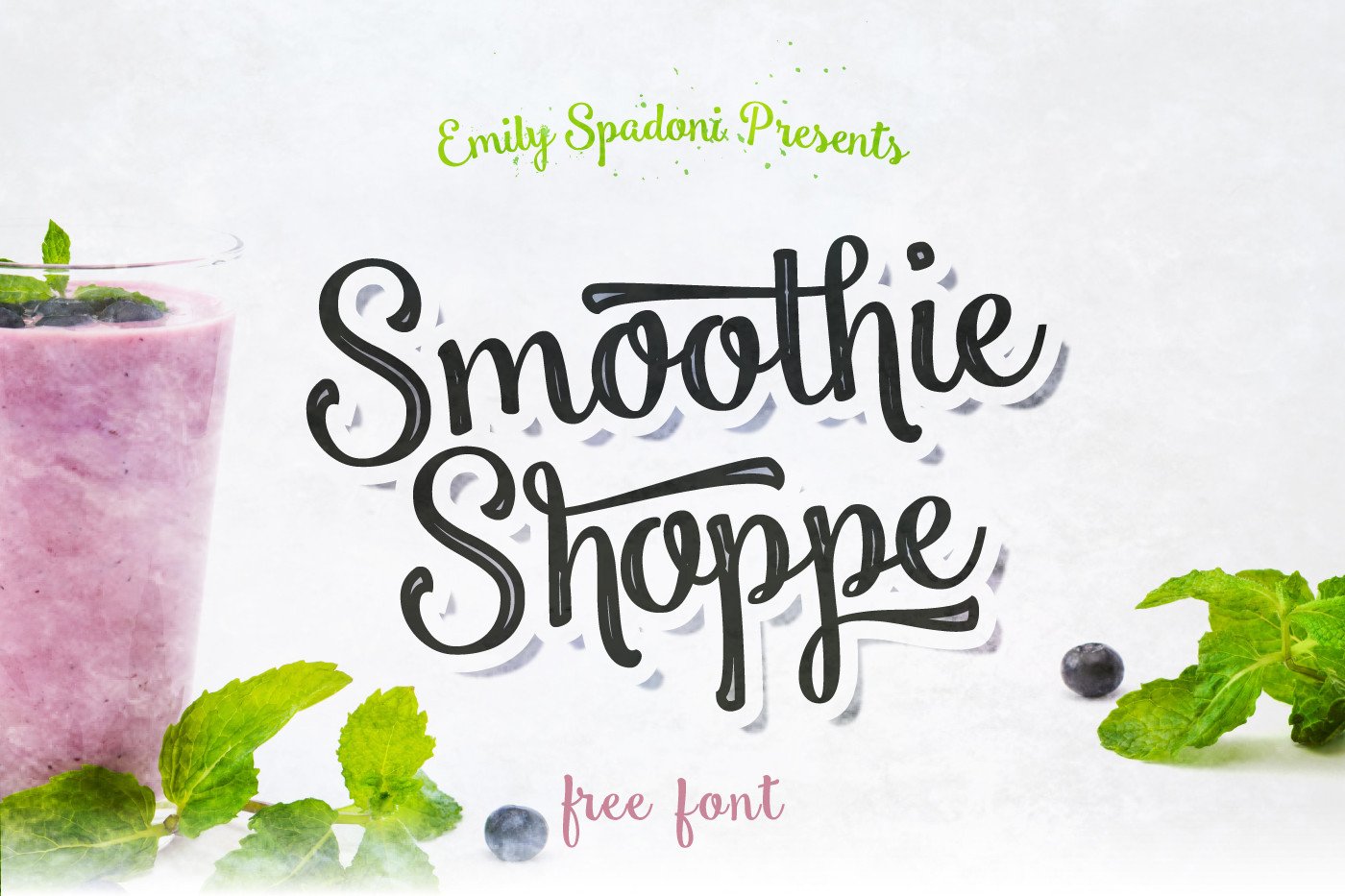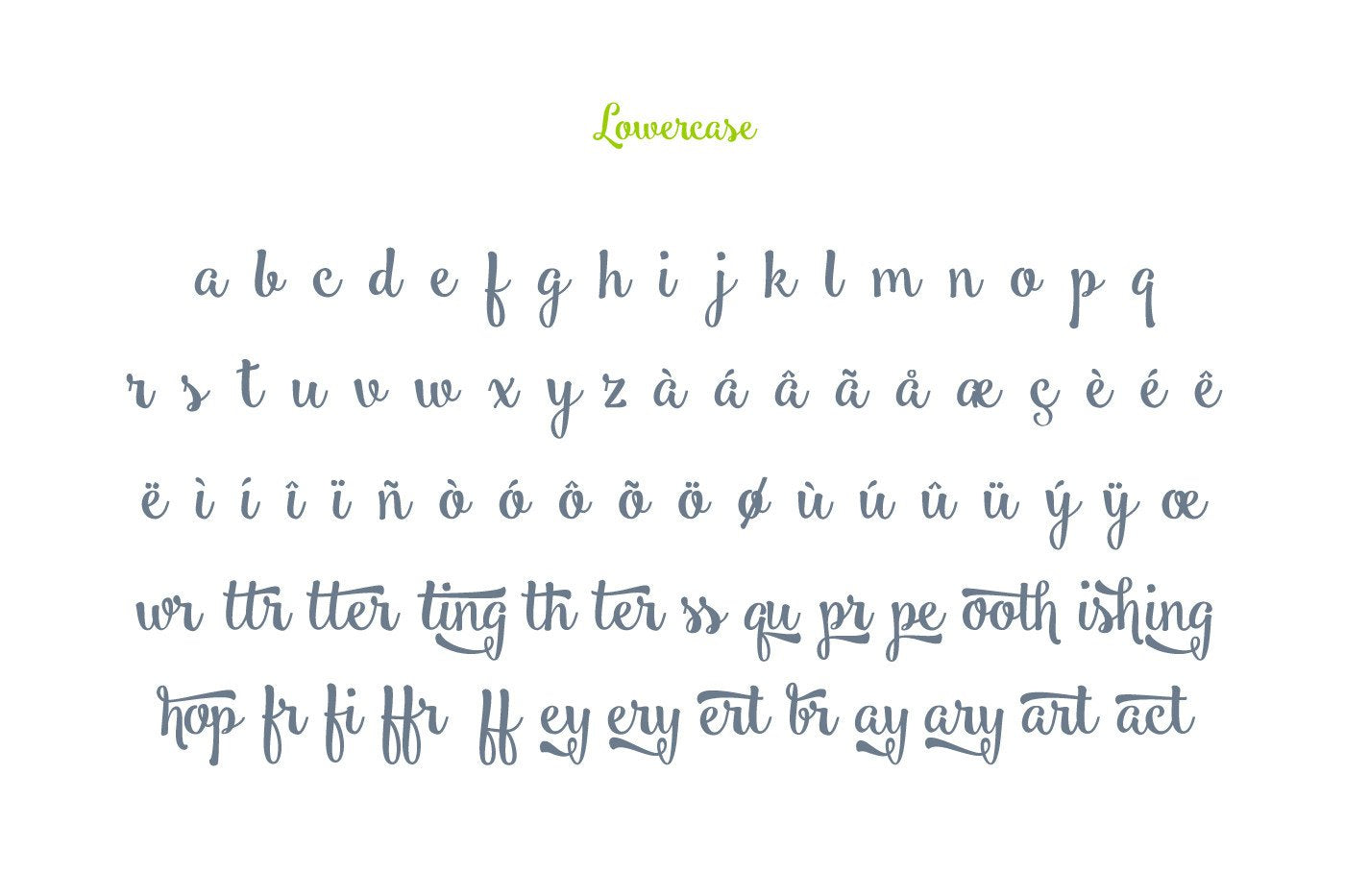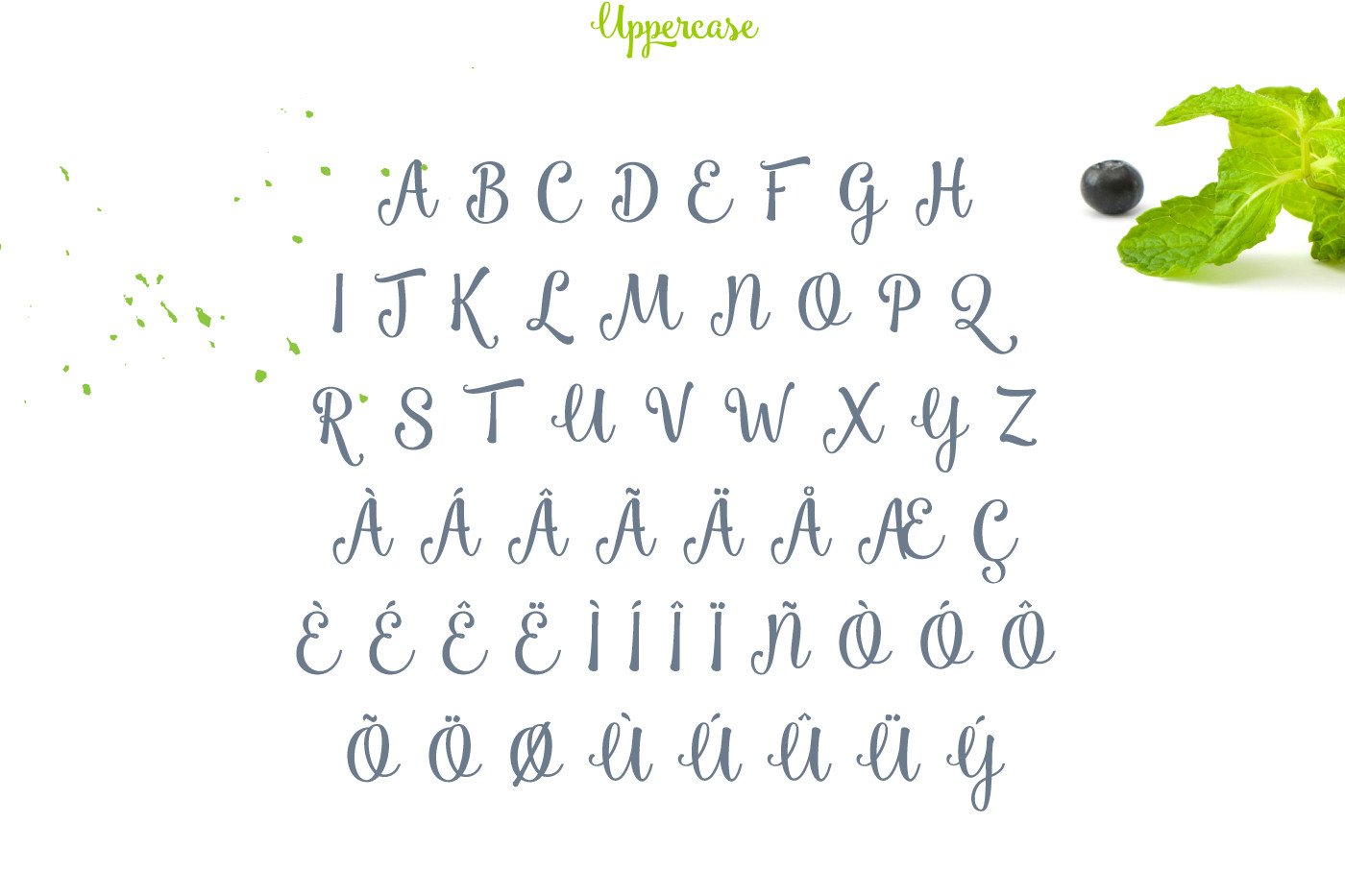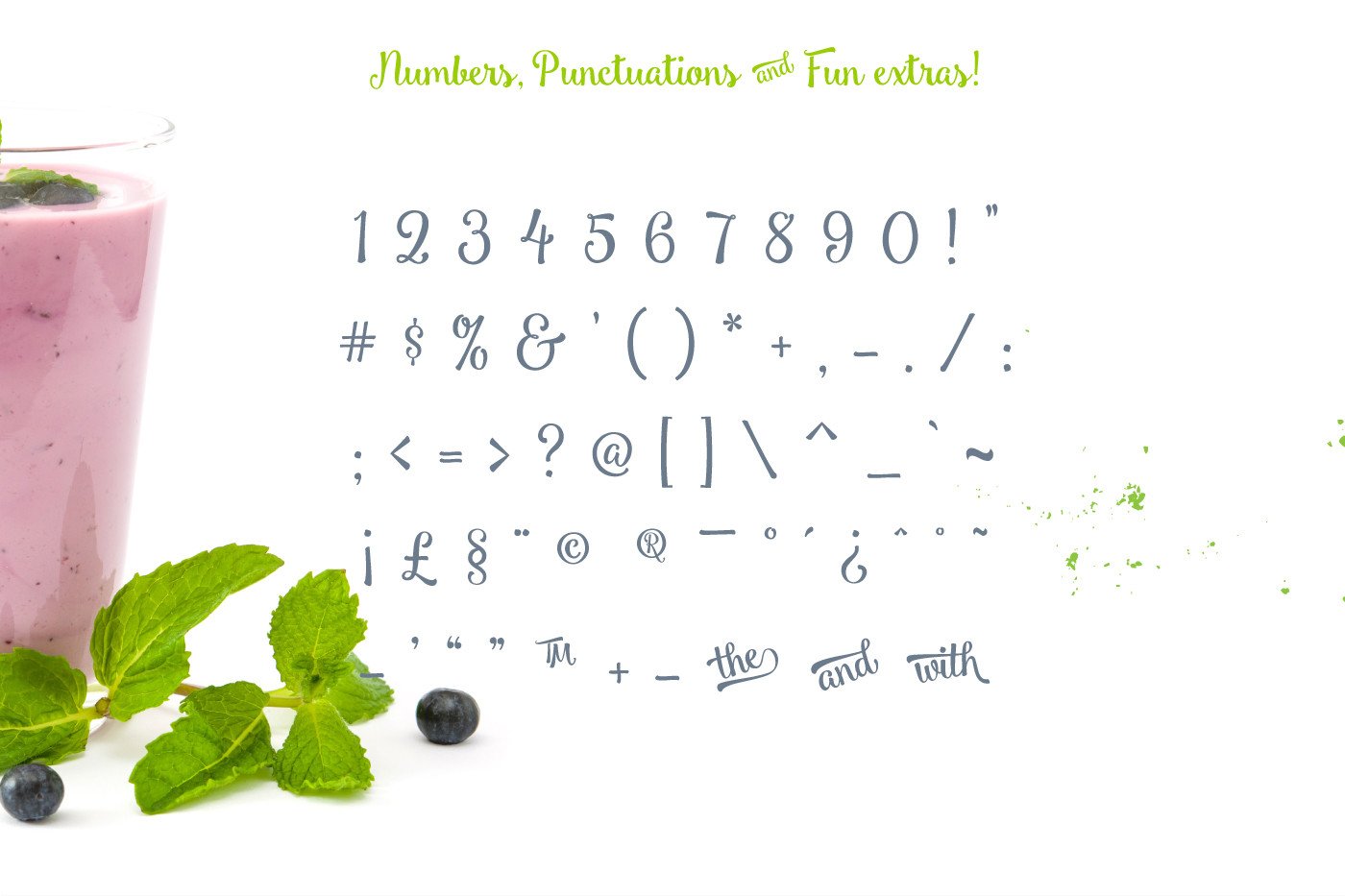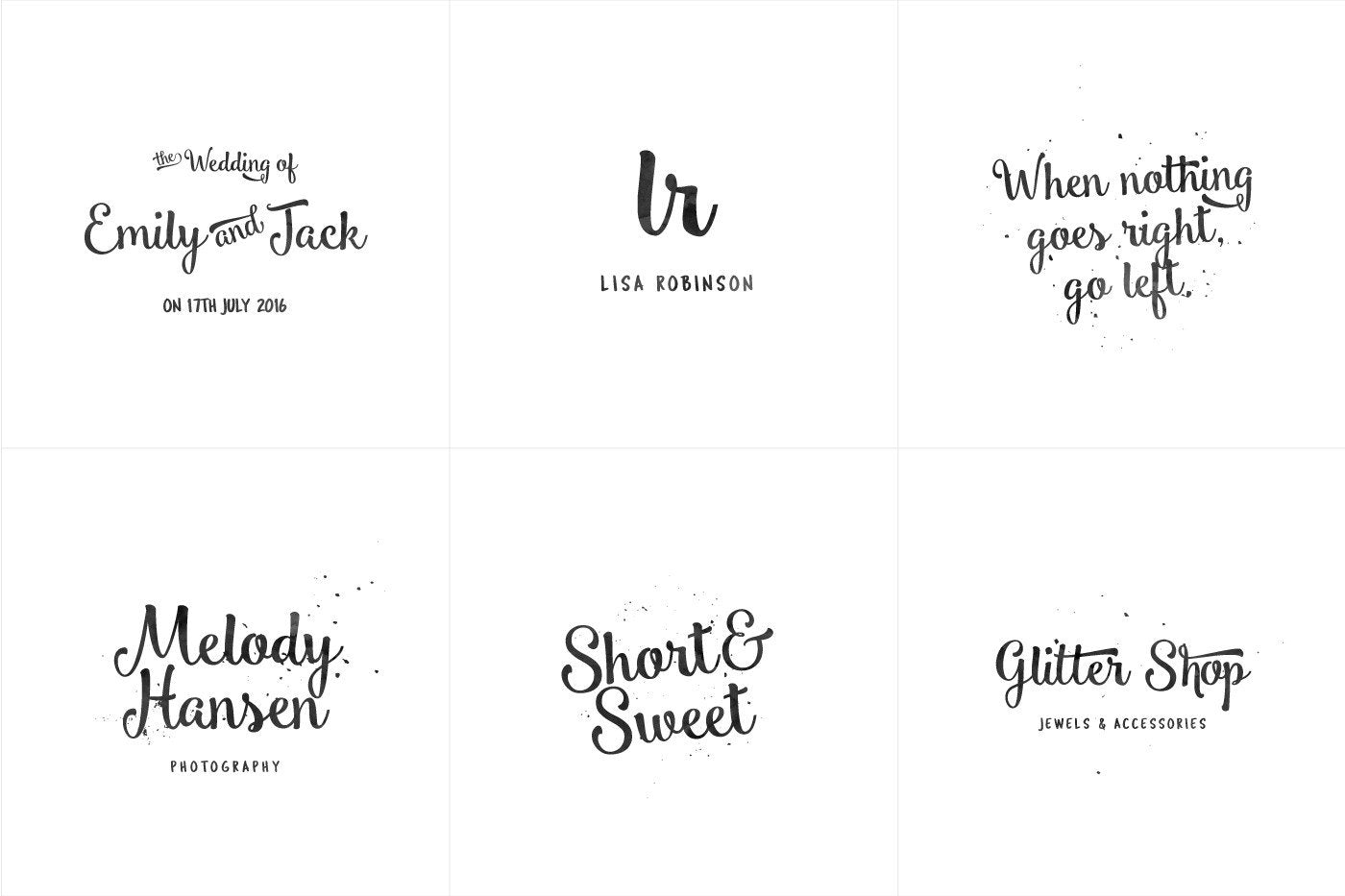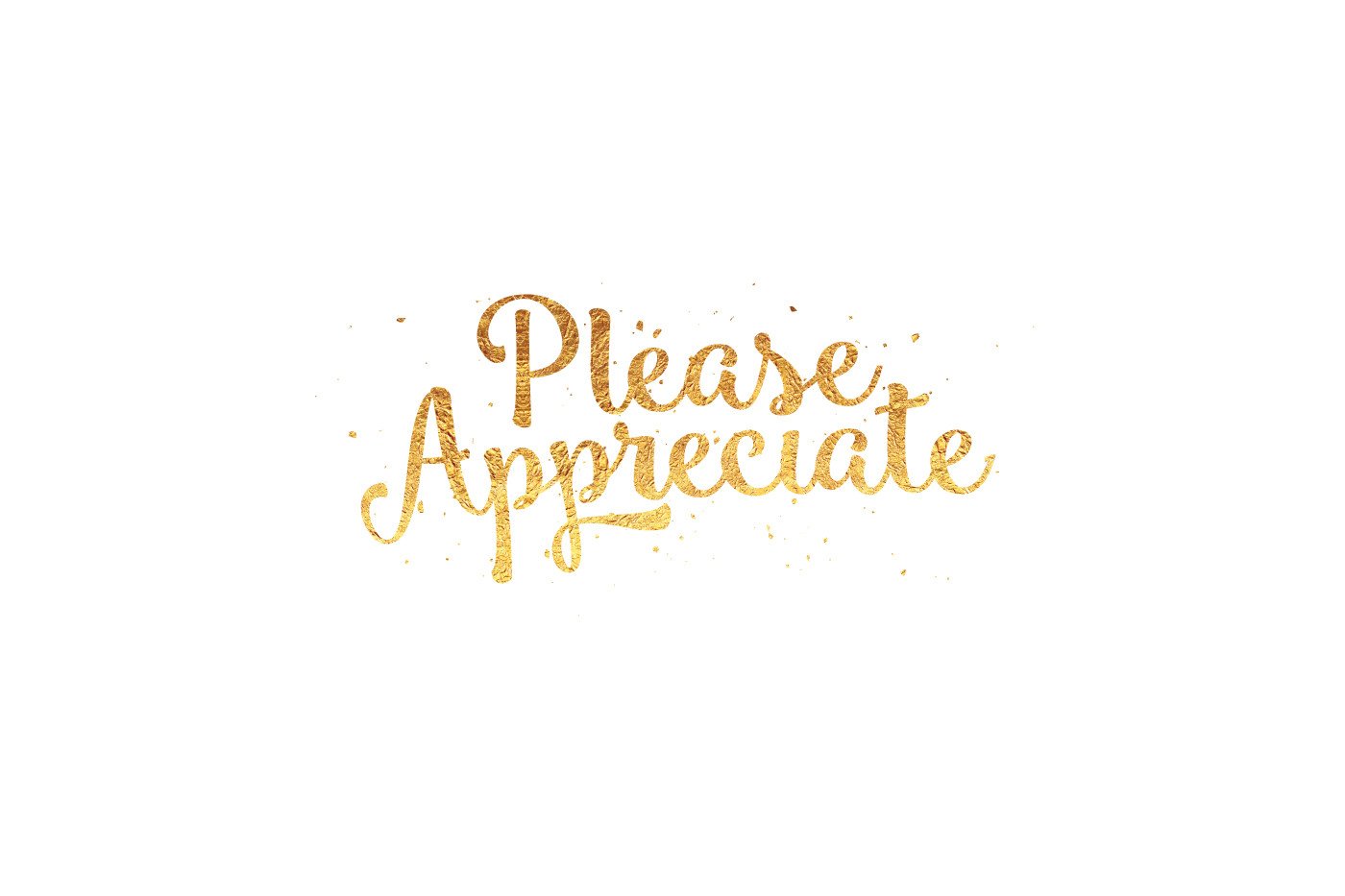
Smoothie Shoppe - Free Script Font
I made these preview images for Emily Spadoni's free font, Smoothie Shoppe. It's a great and super flexible font that is freely available for personal use! It comes with a lot features, punctuations and with some really unique connecting letters with swooshes. Check out the preview images to see what you can achieve with this font. If you need a commercial license for this font, please head on to Smoothie Shoppe and Bonus.